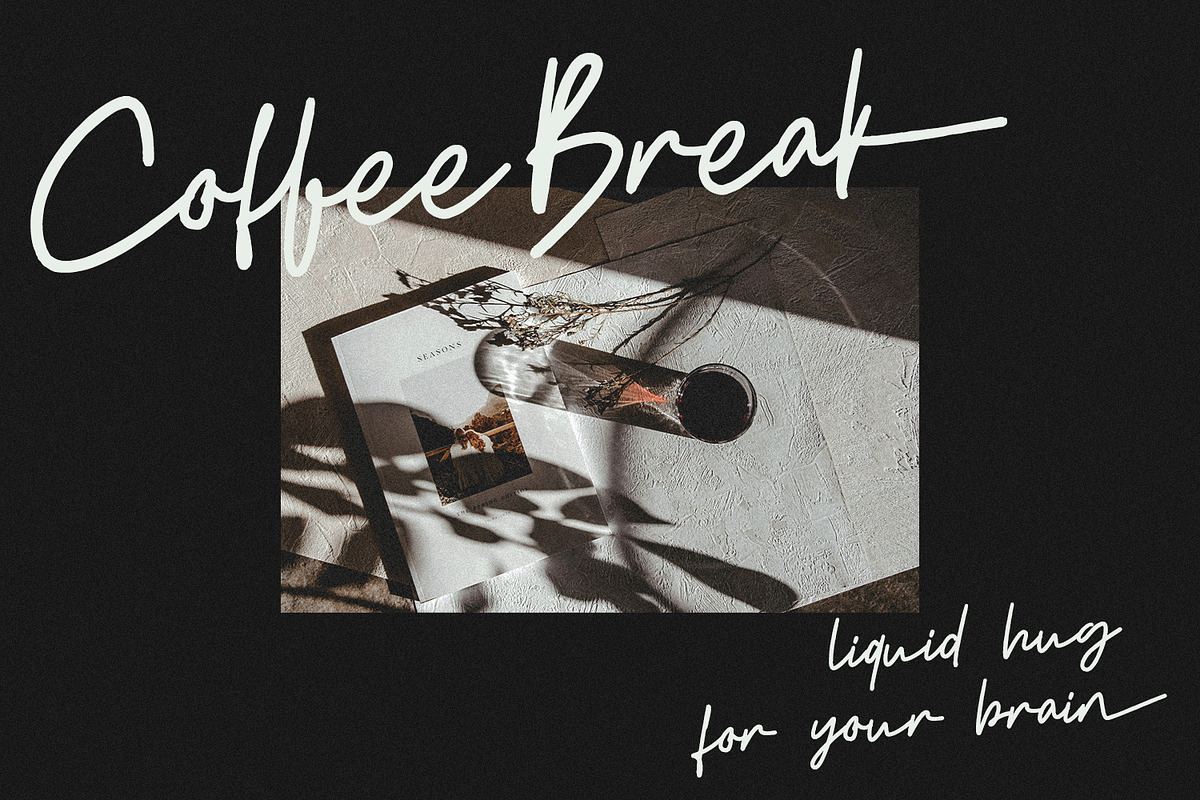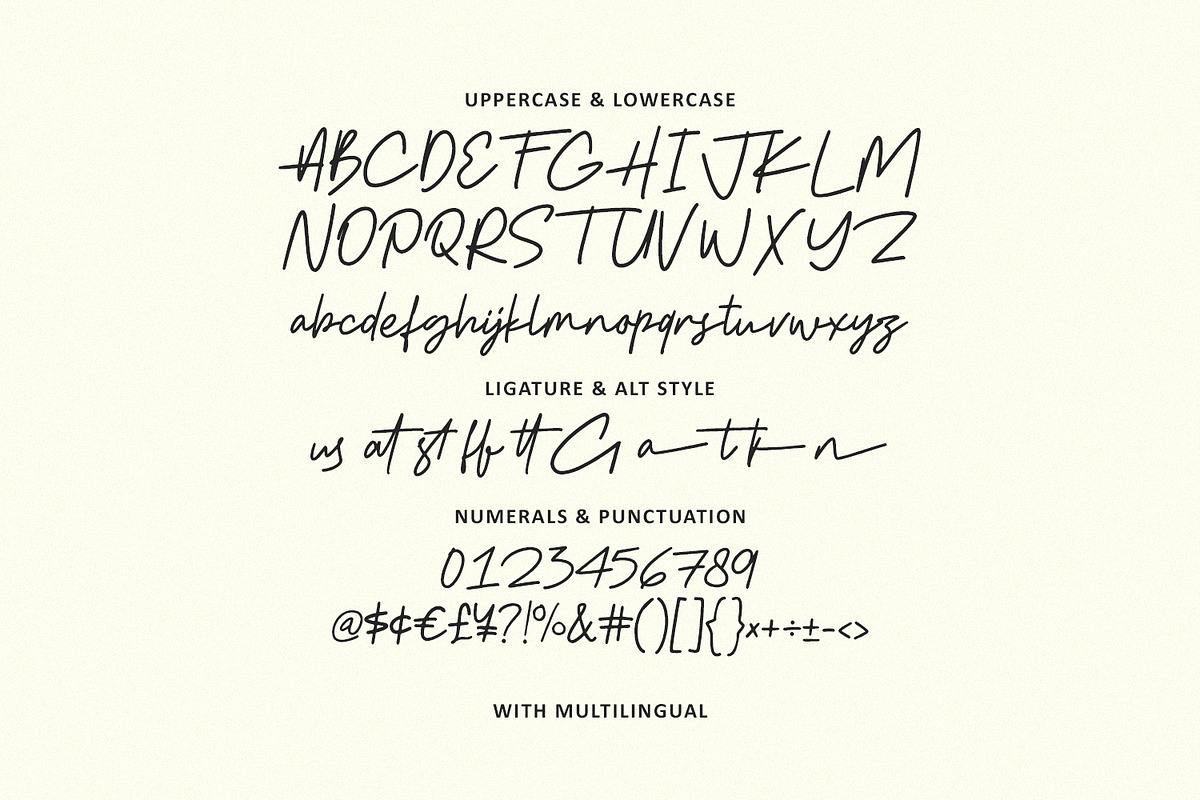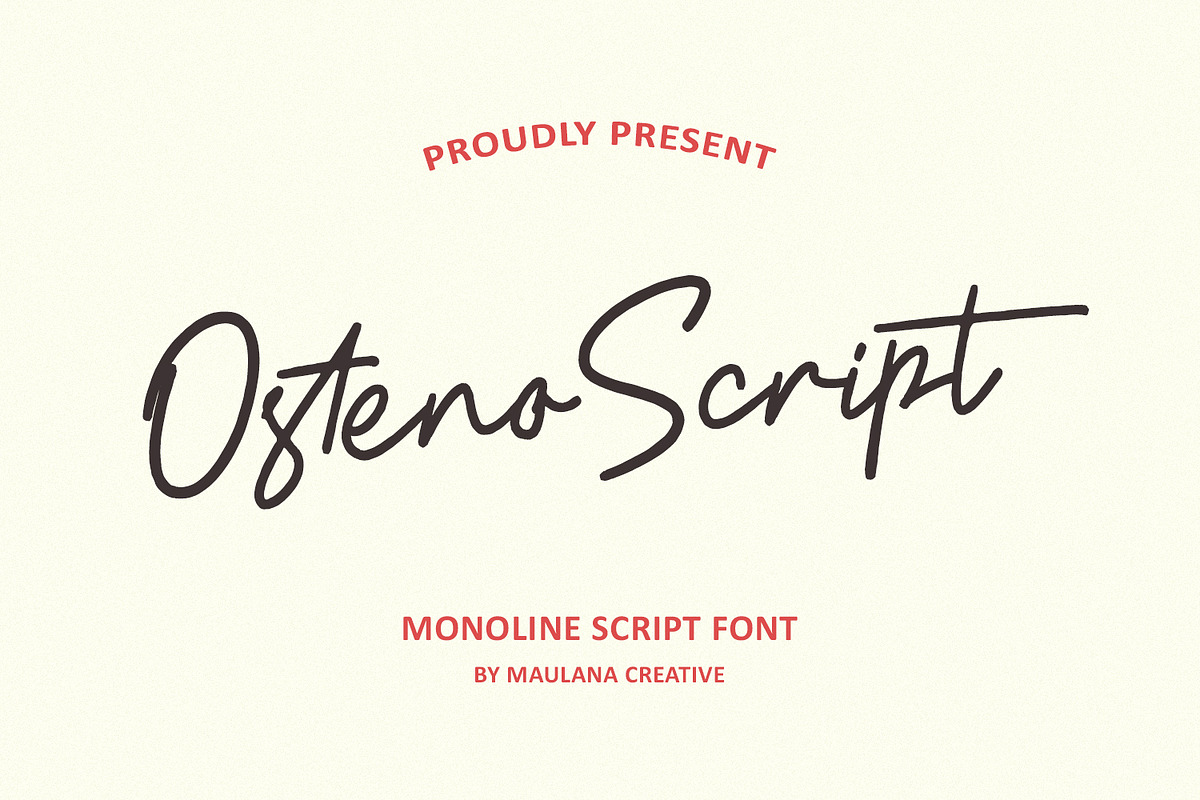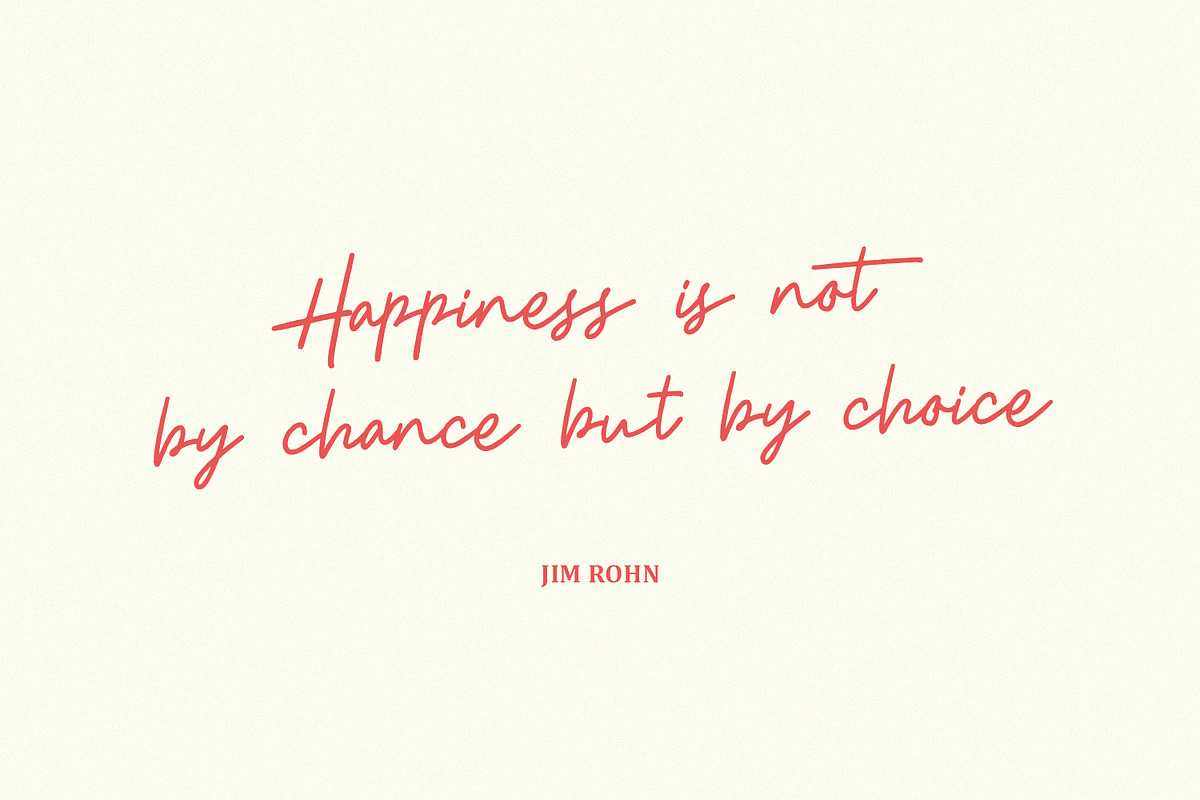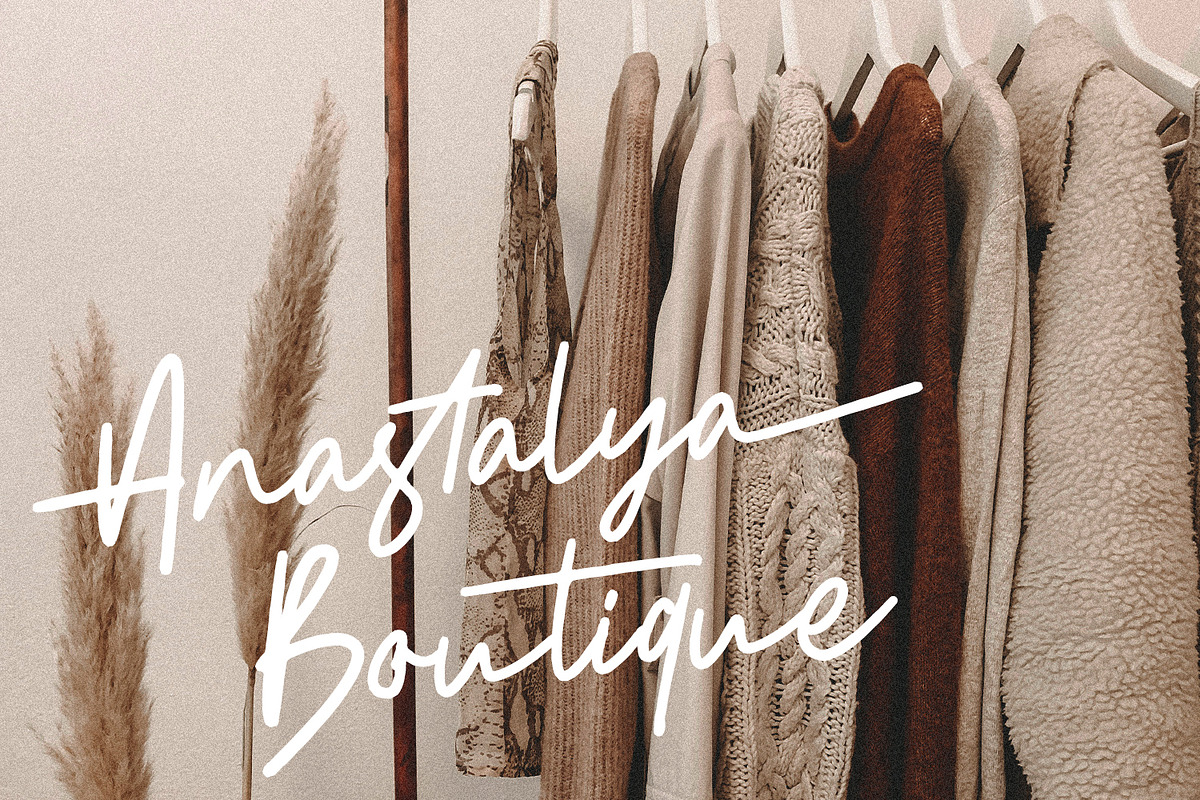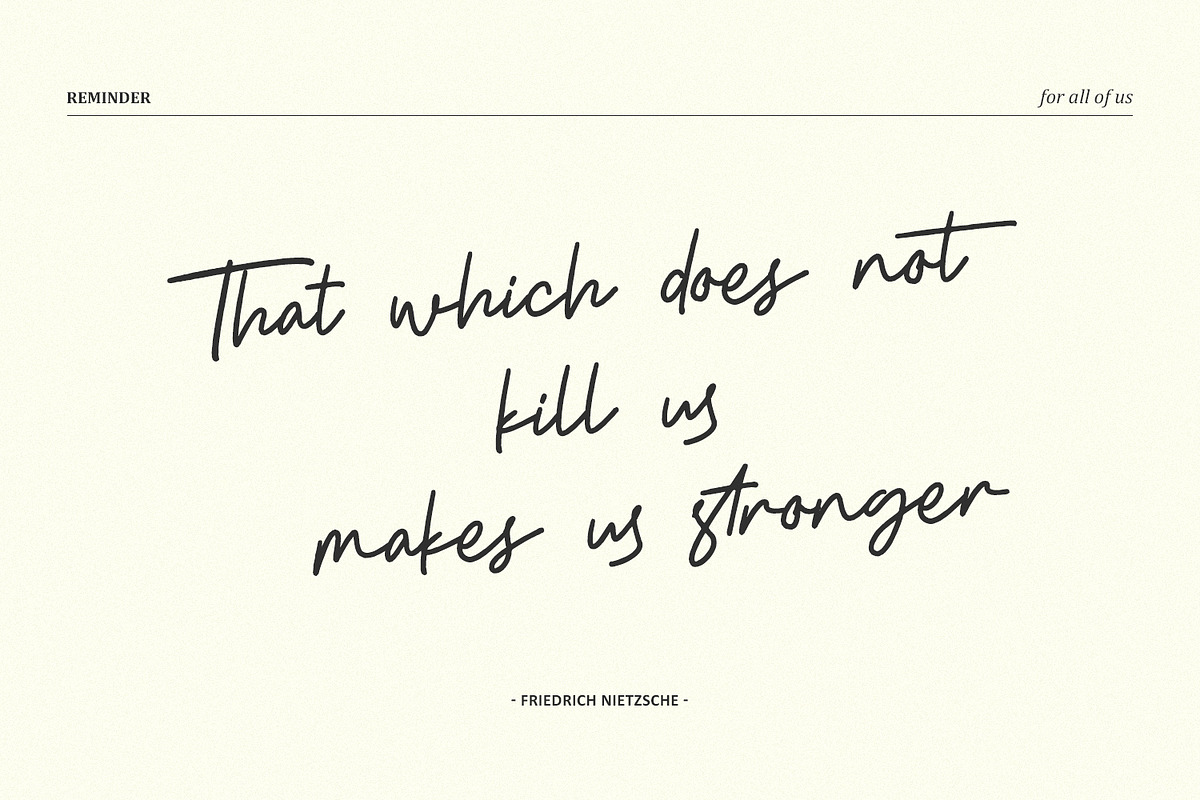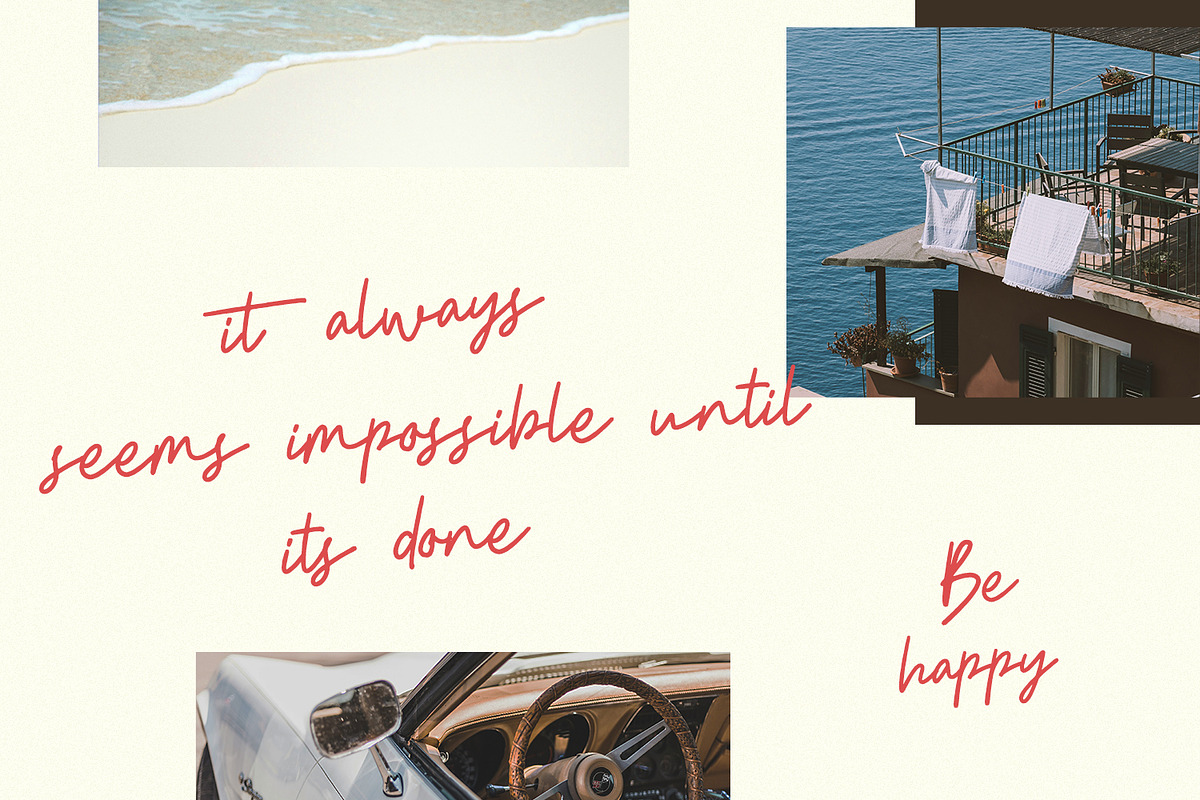
Osteno Monoline Script Font
Introducing Osteno Script, a stunning monoline script font that captures the essence of authentic, relaxed handwritten elegance. Osteno Script is your go-to typeface for projects that demand a personal, stylish, and contemporary touch.
Its beautiful, flowing strokes and consistent monoline weight make it incredibly versatile, perfect for:
- Branding & Logos: Giving your business a unique, personal identity.
- Apparel & Merchandise: Creating stylish t-shirt designs and product labels.
- Quotes & Social Media Graphics: Adding a chic, emotional flair to your content.
- Invitations & Greeting Cards: Conveying warmth and sophistication.
- Photography Watermarks: Protecting your work with a delicate signature style.
Osteno Script comes complete with a full set of uppercase and lowercase characters, numerals, punctuation, and essential multilingual support. It also features a variety of beautiful ligatures and alternate styles to make your text truly stand out.
Elevate your design game with the effortless charm of Osteno Script!